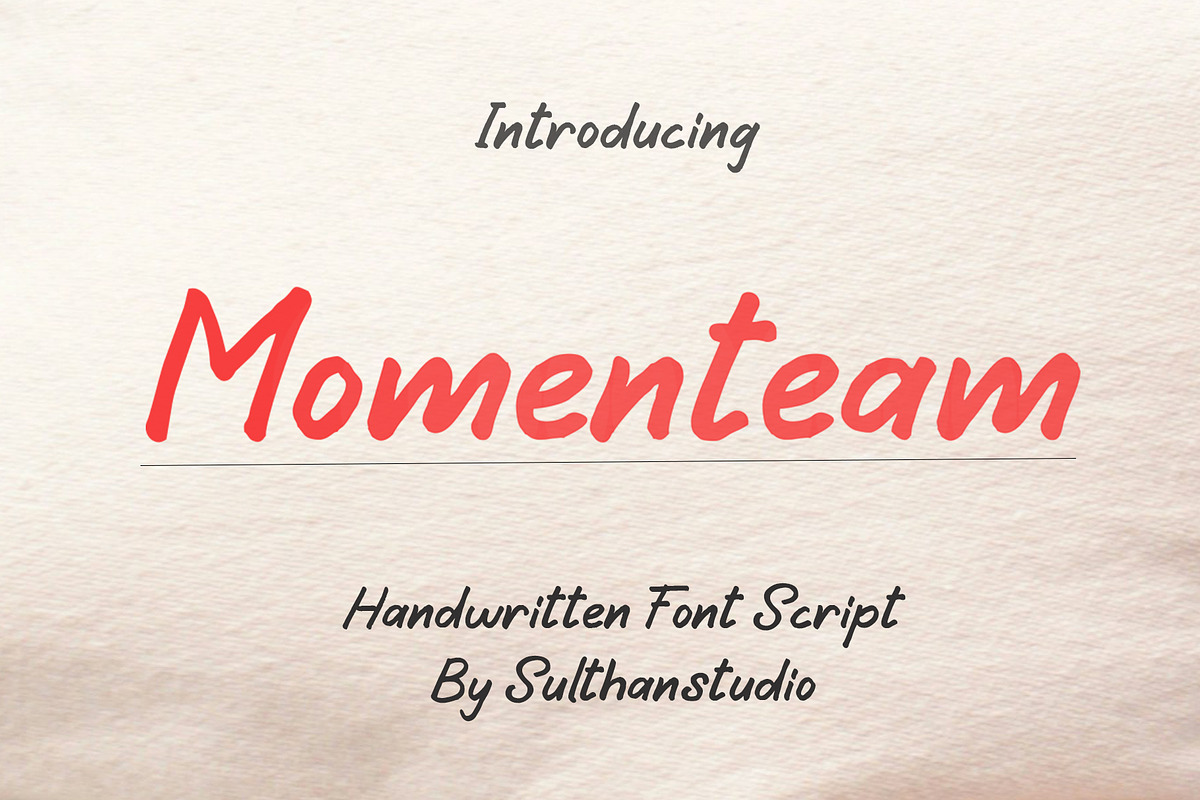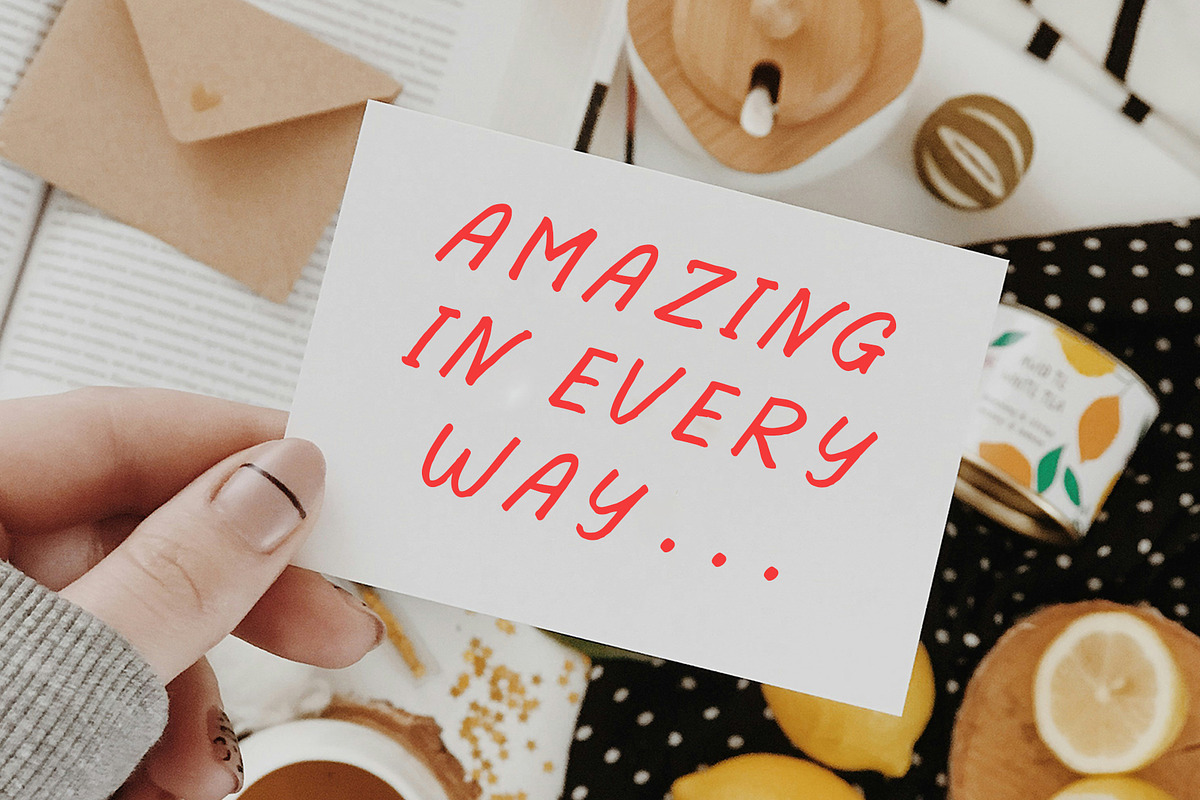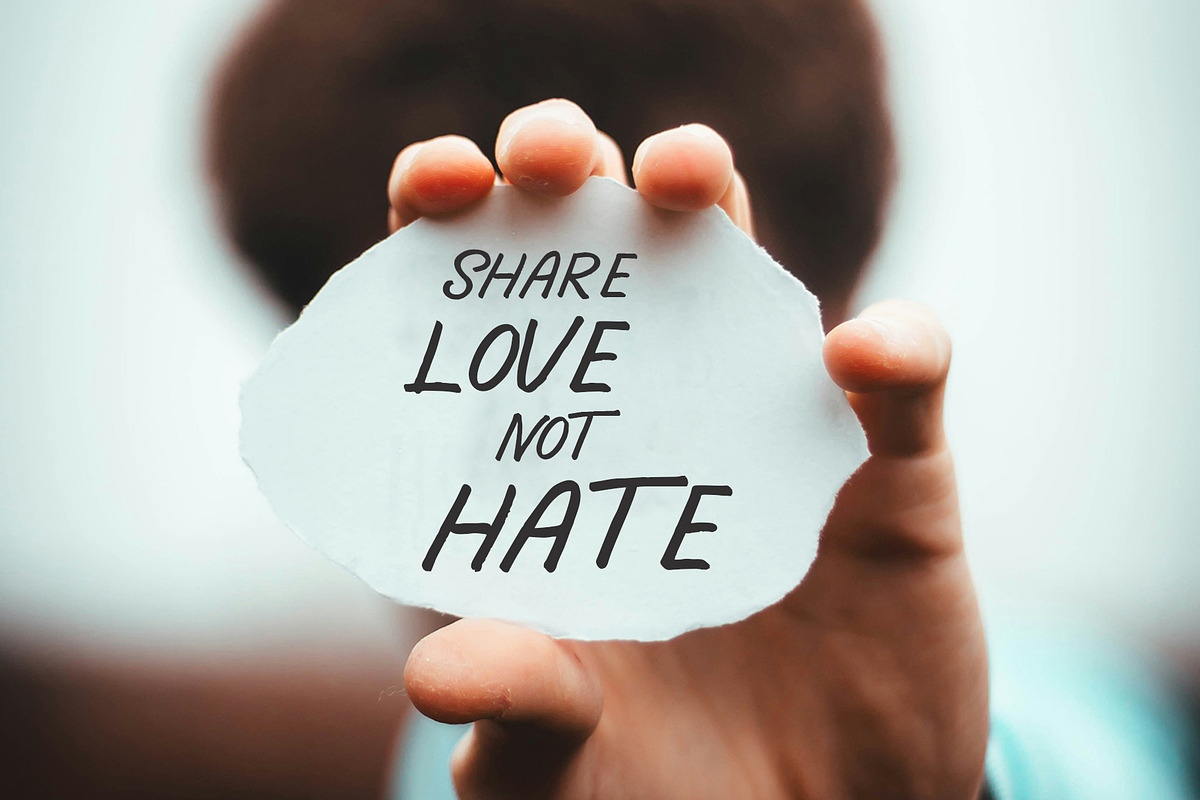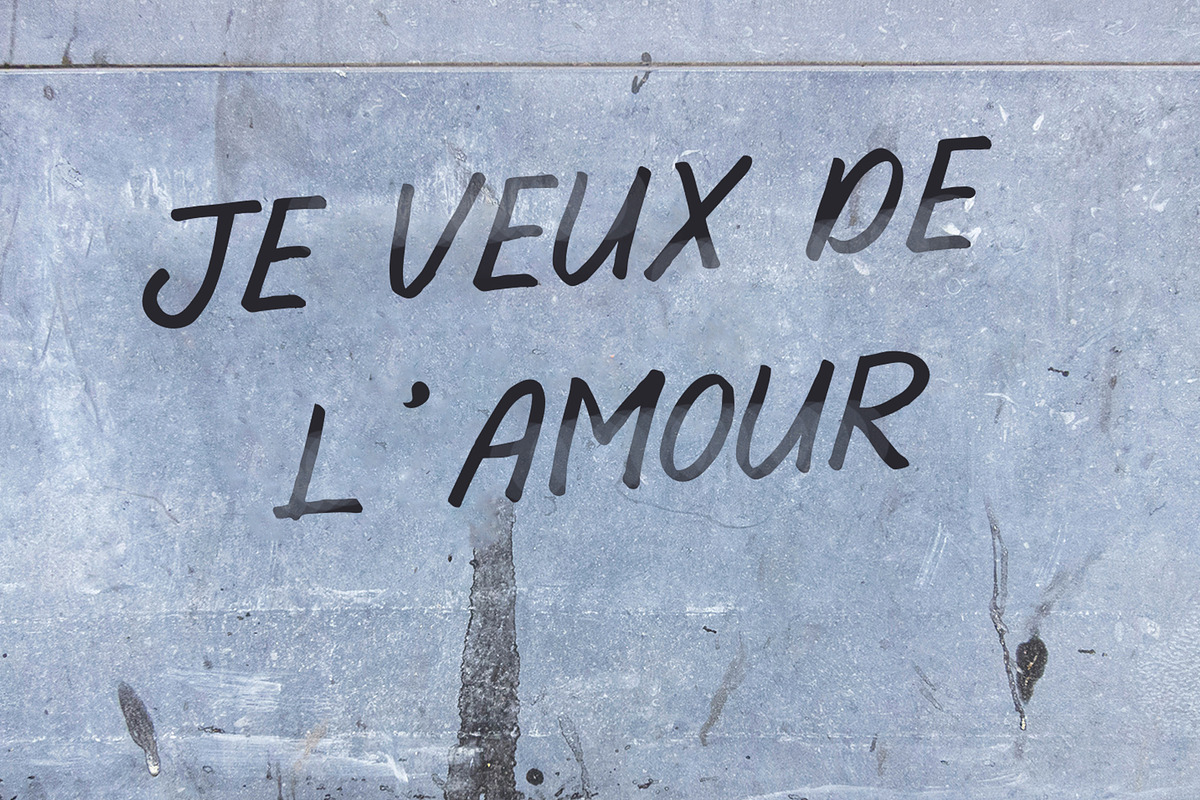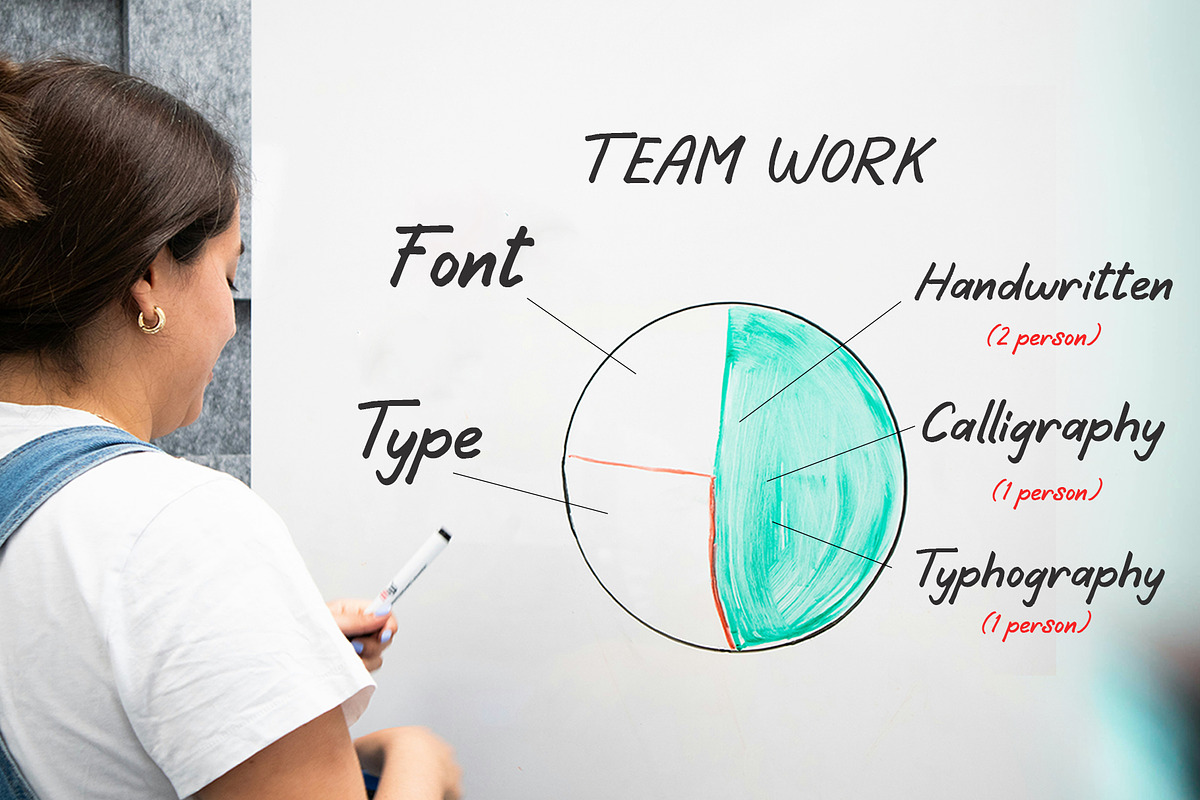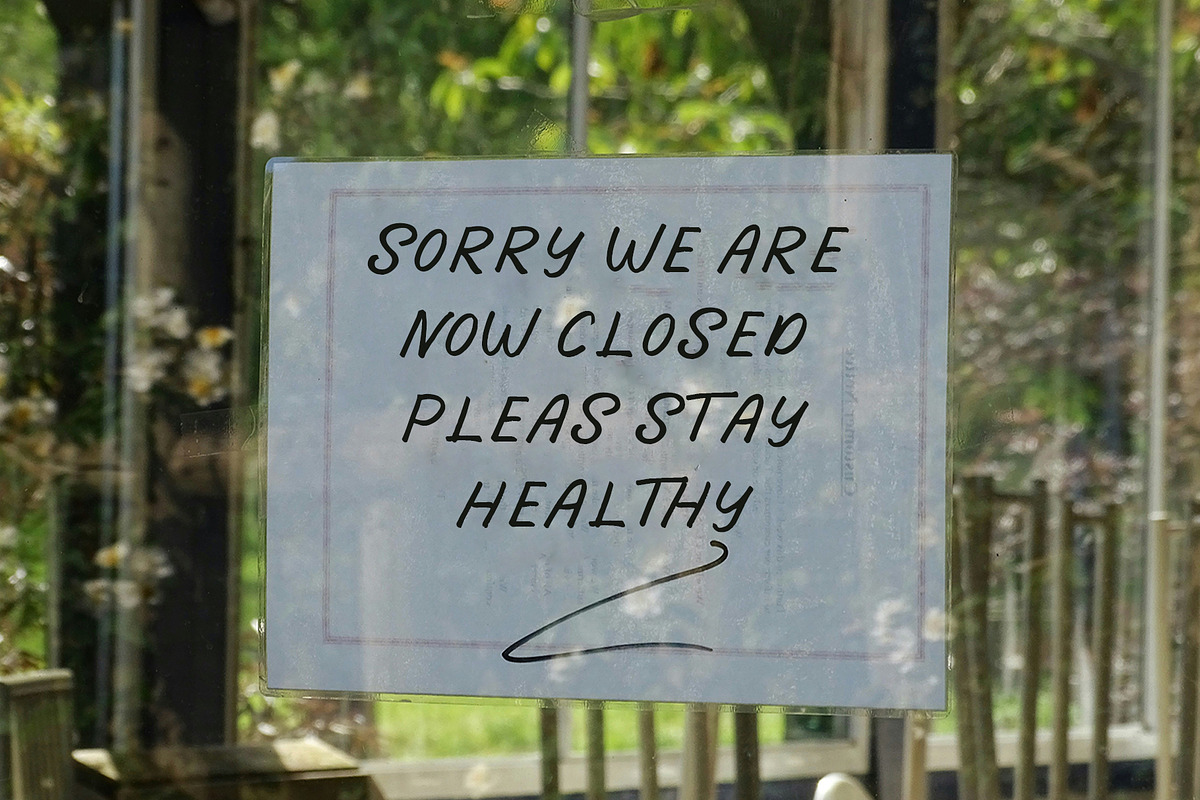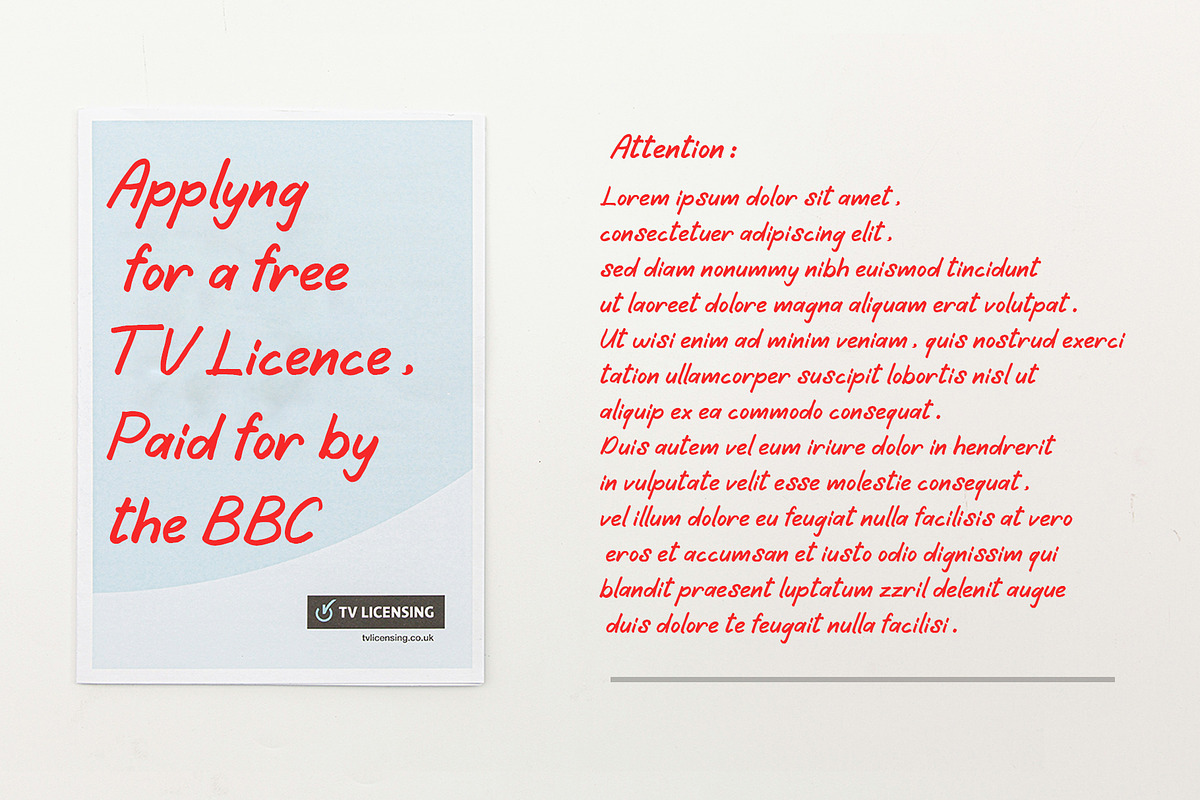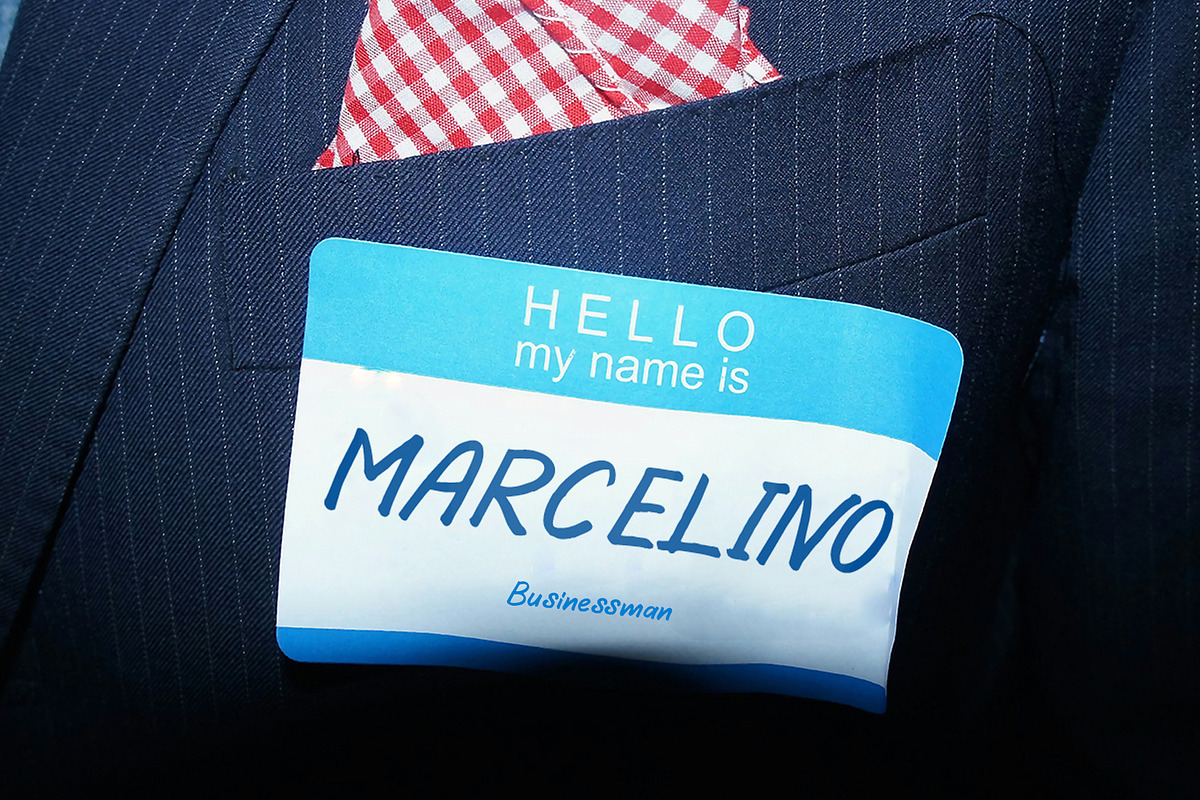
Momenteam
Introducing an authentic, hand-drawn typeface - this font embodies organic charm and a homemade aesthetic. Crafted meticulously with a marker and directly transcribed onto paper, it's subsequently transformed into a digital vector format. This ensures unrivaled quality, longevity, and versatility. Catering to your creative demands, it's designed to inject a touch of natural, lively, handwritten-style articulation into your projects.